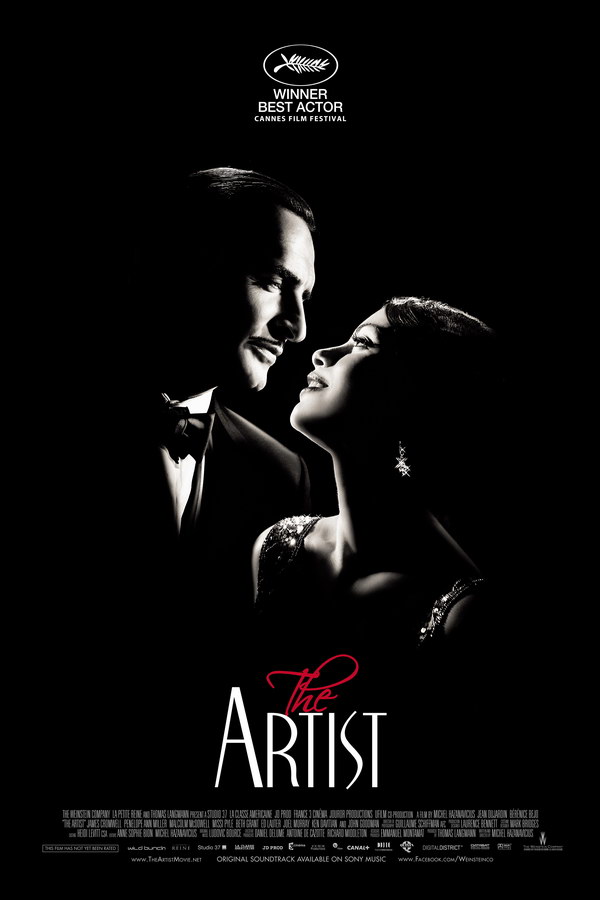
The Artist Font
Fonts in UseThe Artist is a silent black-and-white romantic comedy-drama film released in 2011, directed by Michel Hazanavicius and starring Jean Dujardin and Bérénice Bejo. In the movie, a fading silent film star and a promising young actress struggle through Hollywood's shift to talkies in the late 1920s.
The movie poster title exhibits two distinct fonts: the red cursive "The" is reminiscent of Scriptina by CheapProFonts, while the black retro-style "Artist" resembles Nite Club by Thomas E. Harvey. Both fonts are available for free download in the Fonts Used Section.